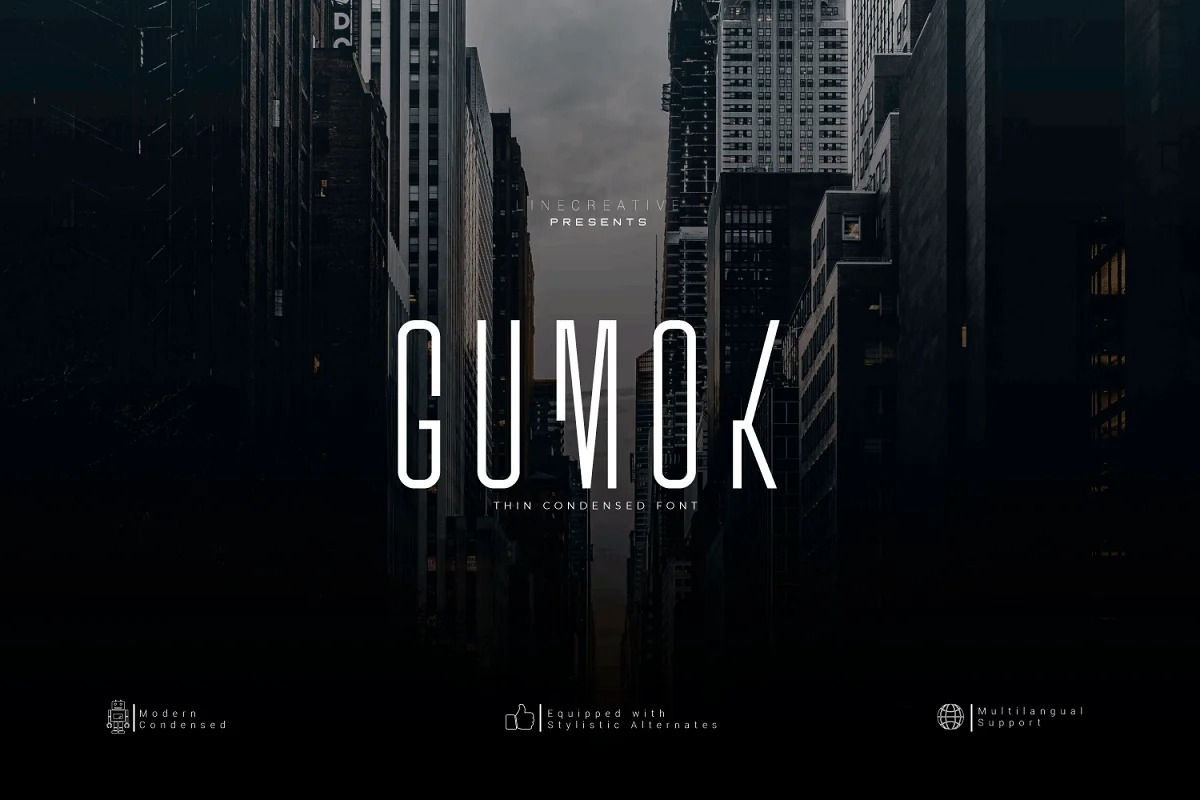
Gumok Font
Gumok Display Font
This font is a modern & sophisticated sans serif. Made from font designer named Linecreative. It’s Perfect for logo, name card, magazin layout,headers, or oven large scale artwork. Rudbeckia come with clean lines and smooth curves give any project an extra touch of class.